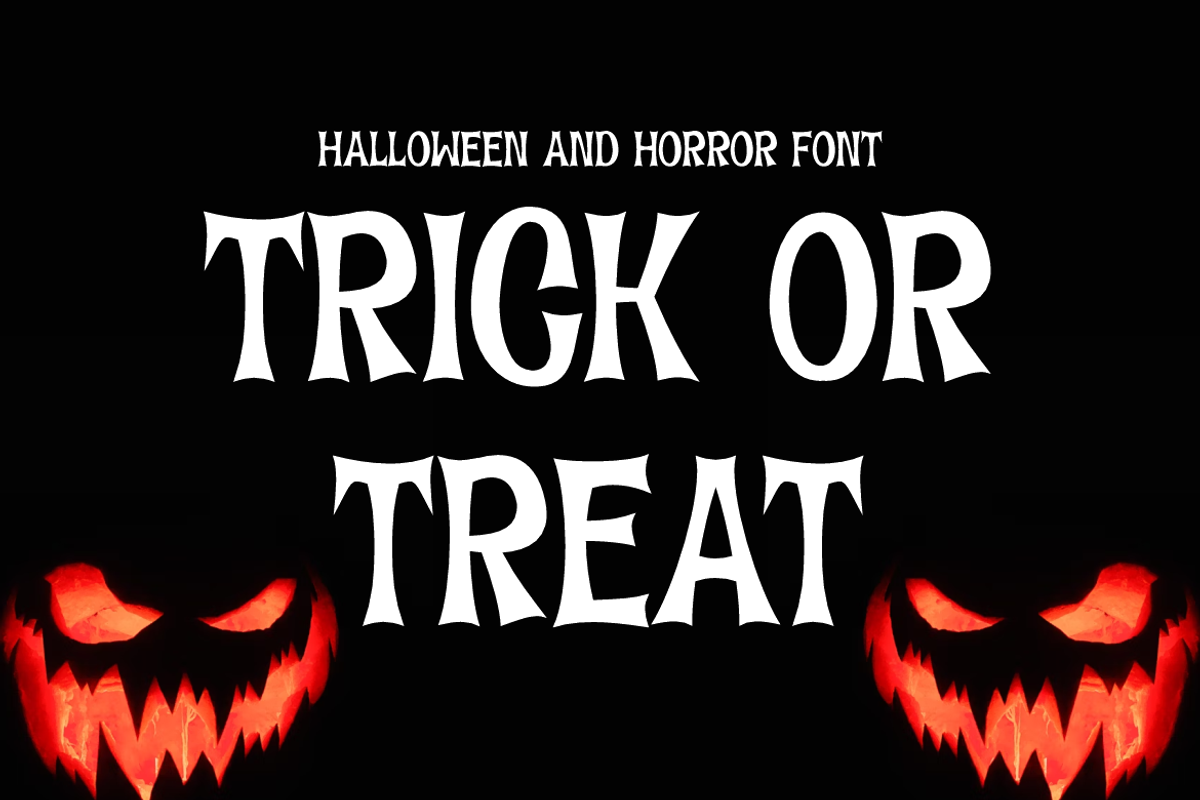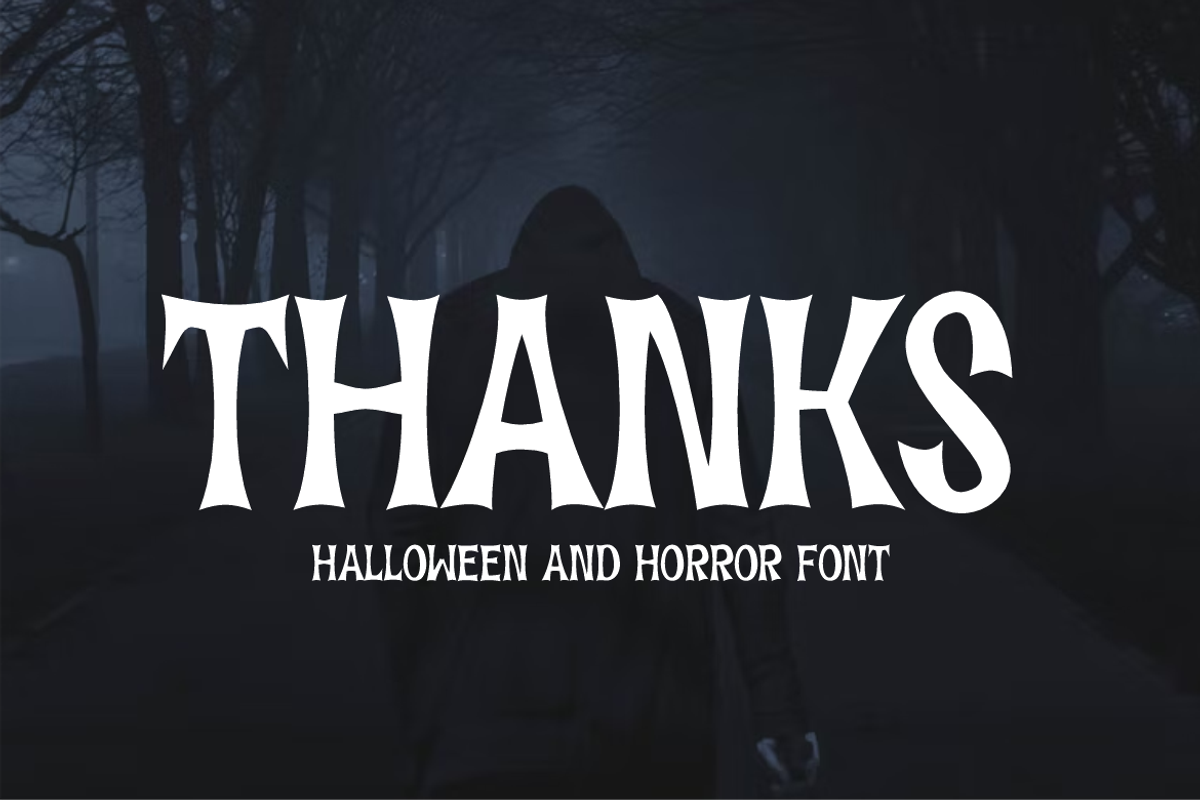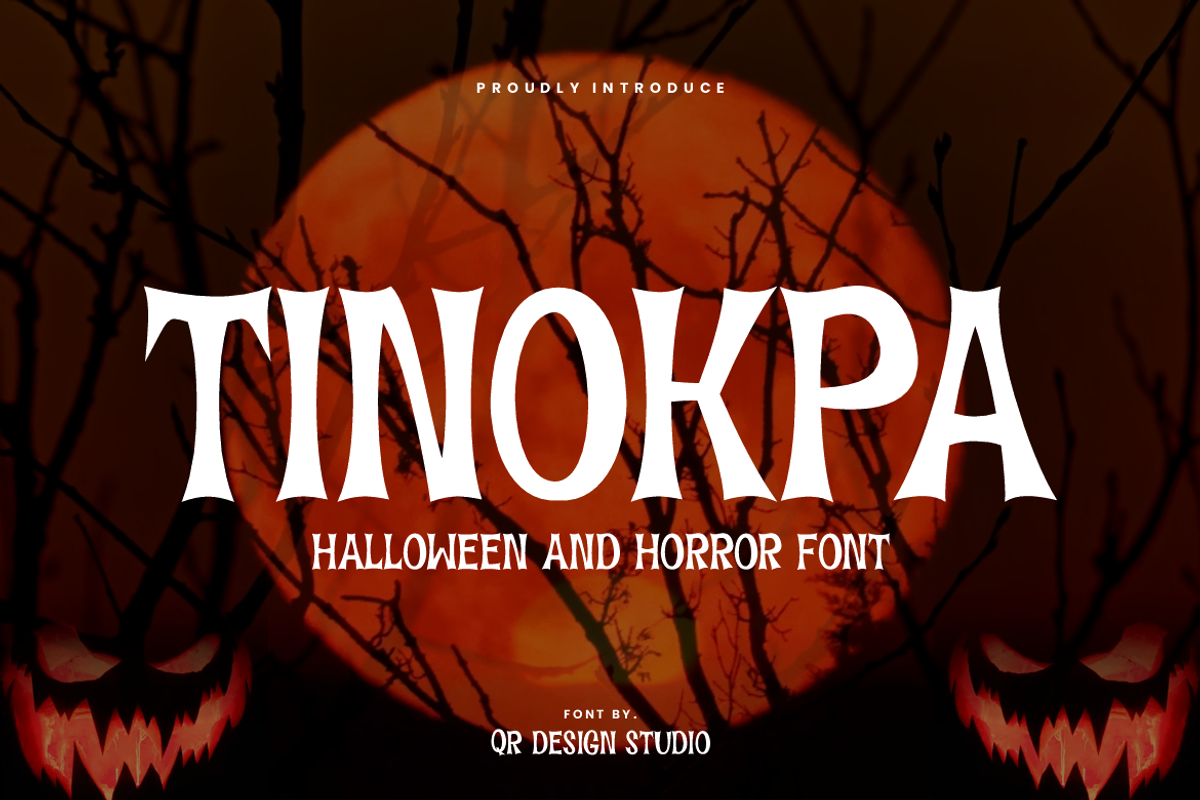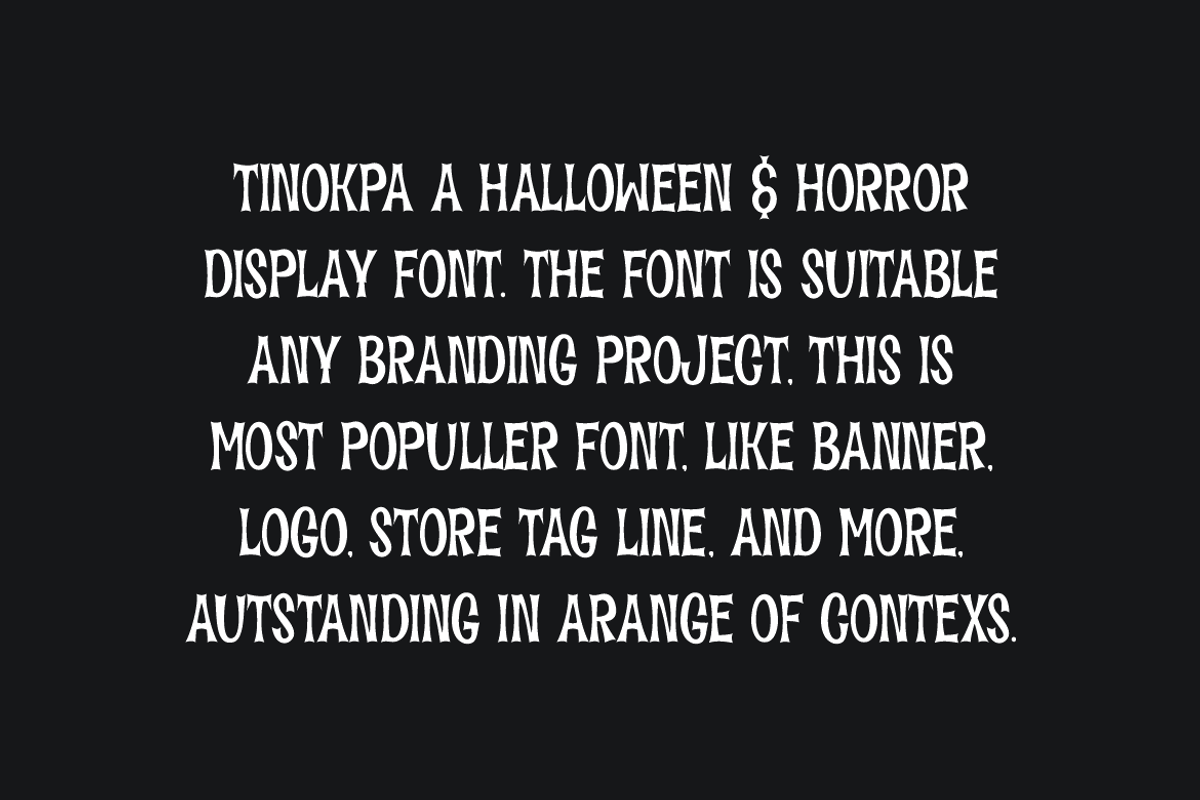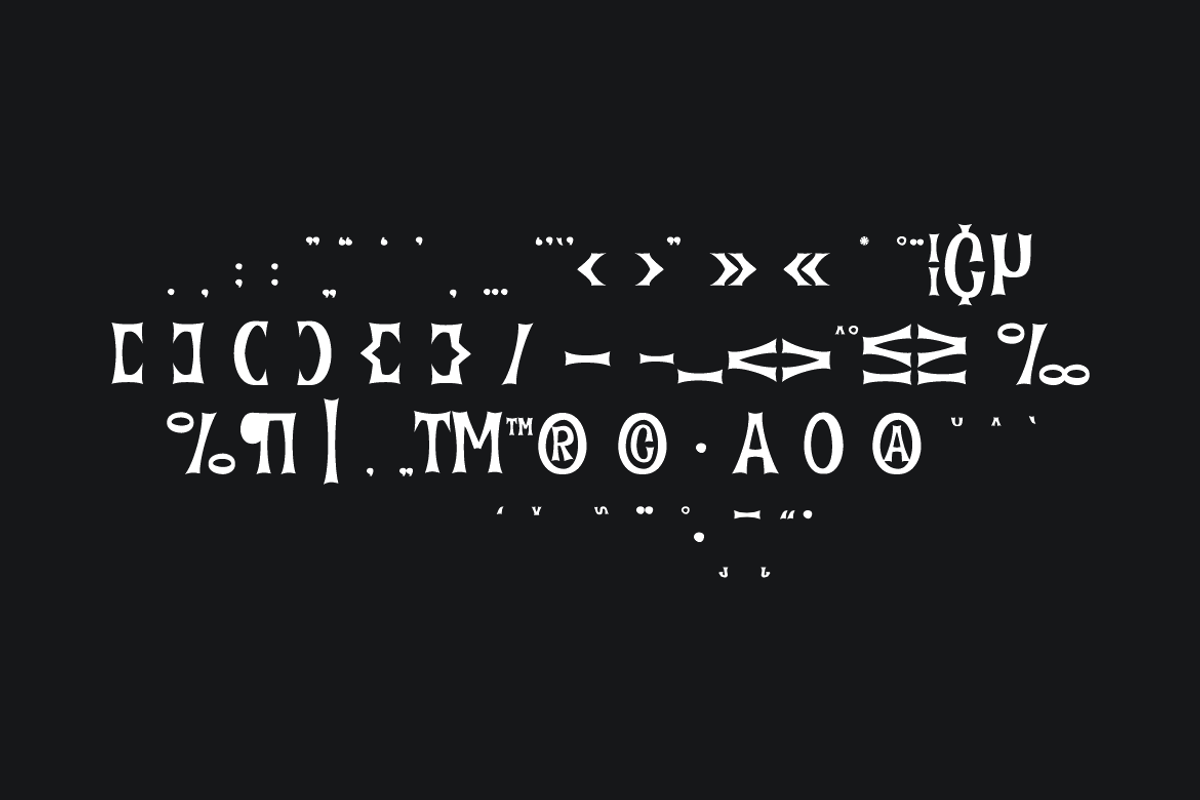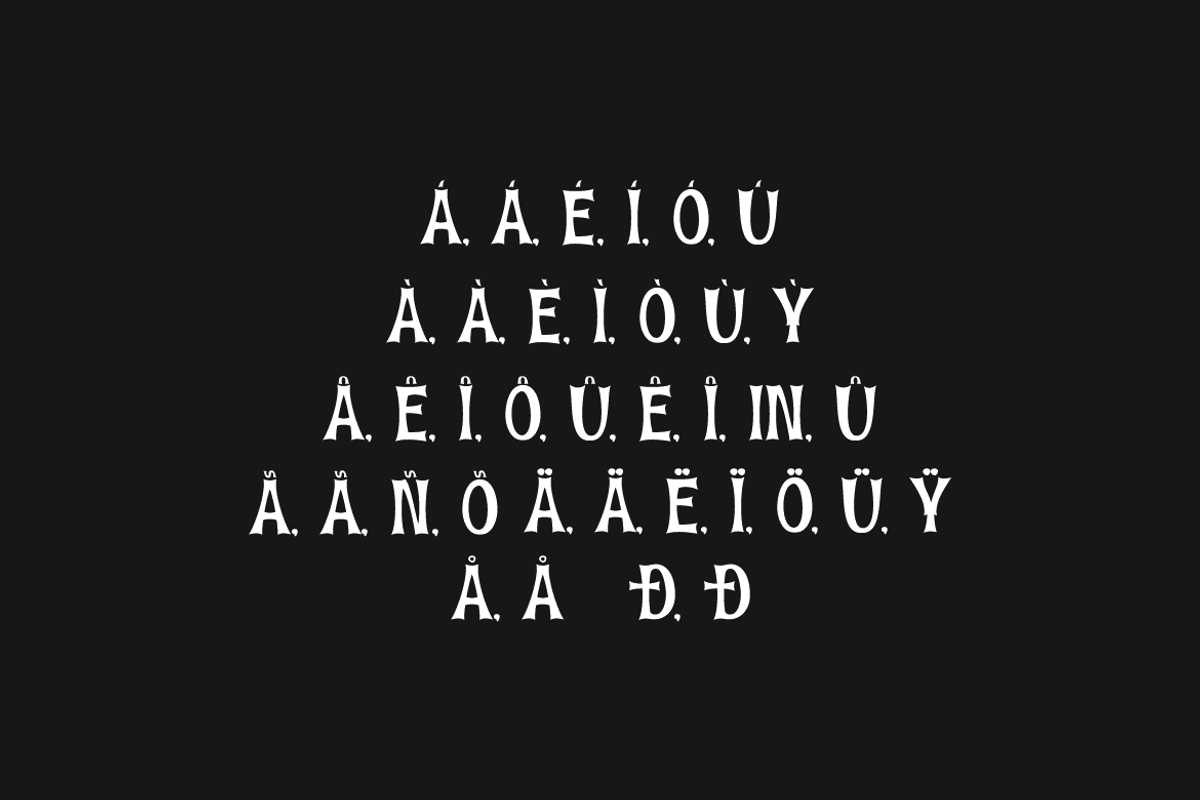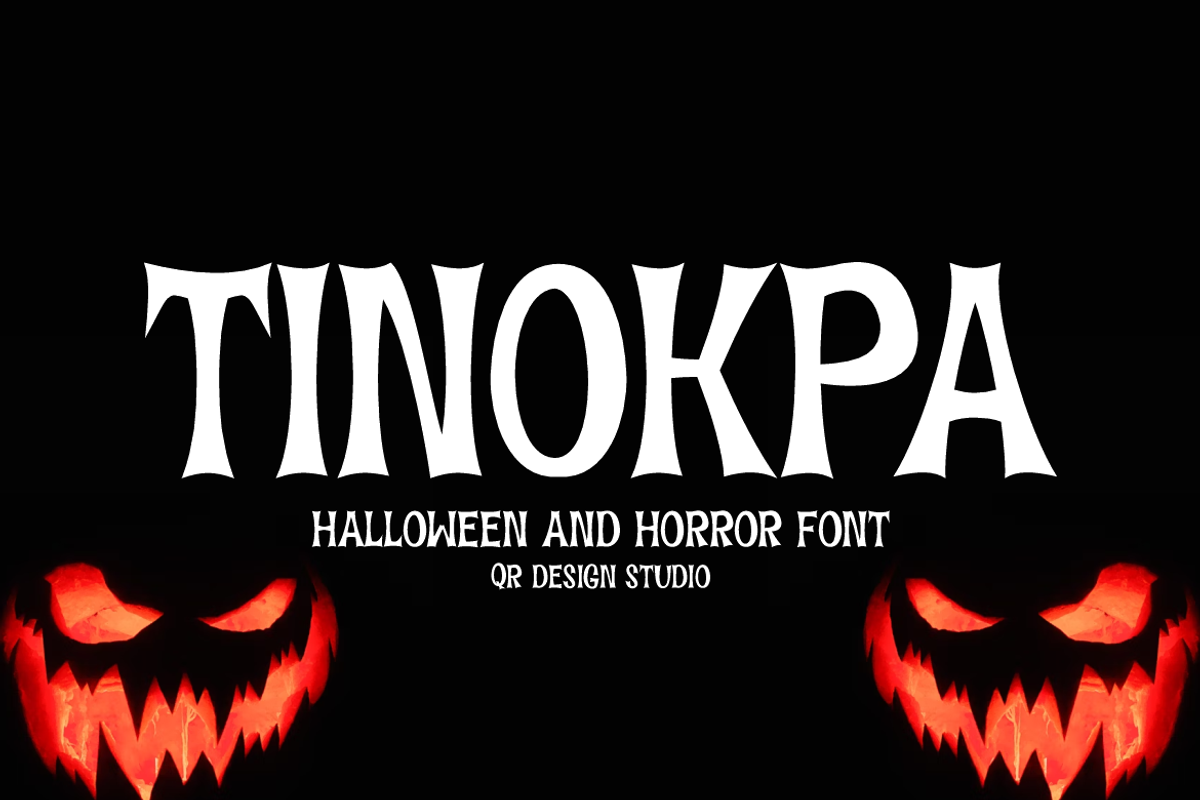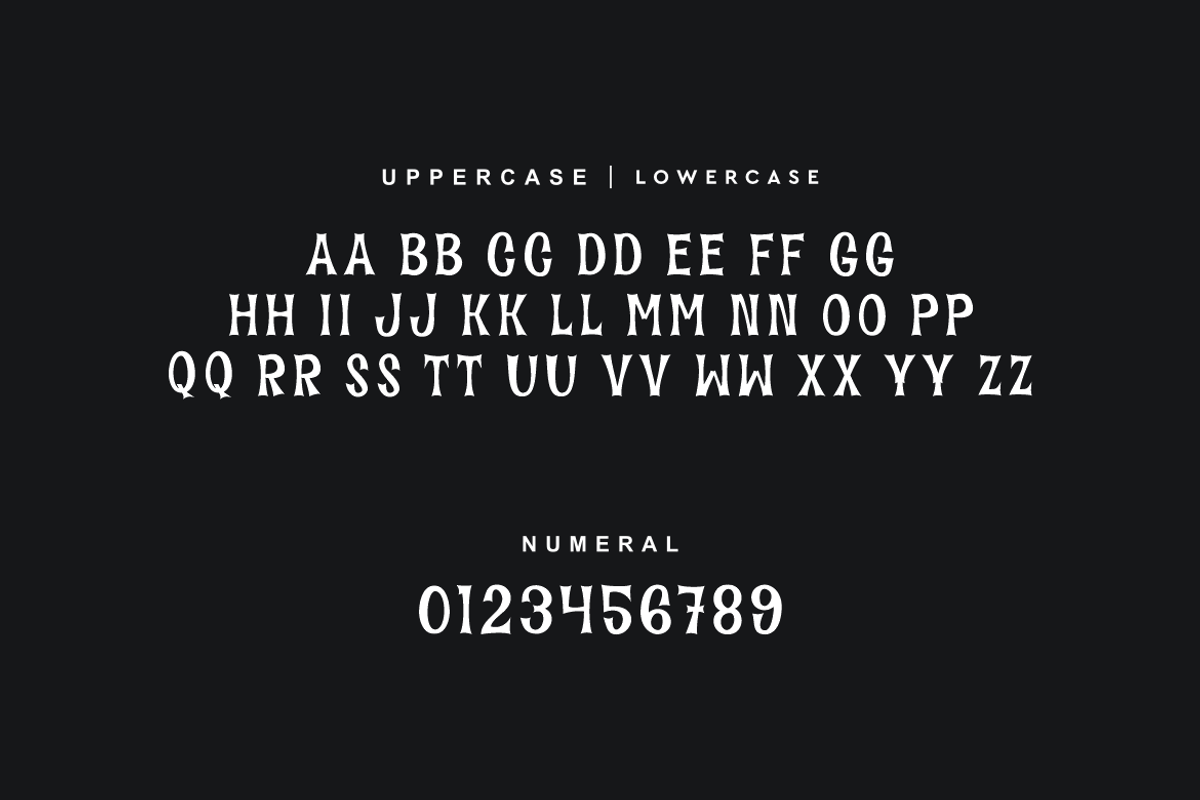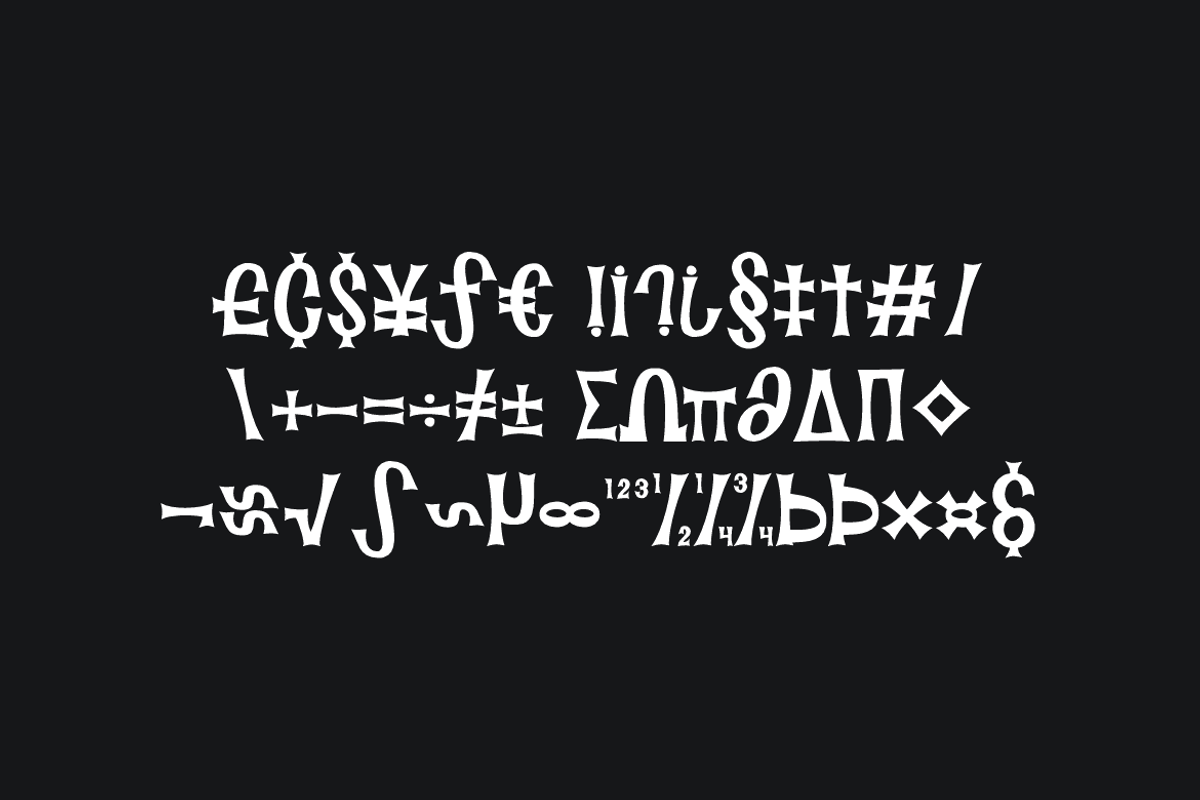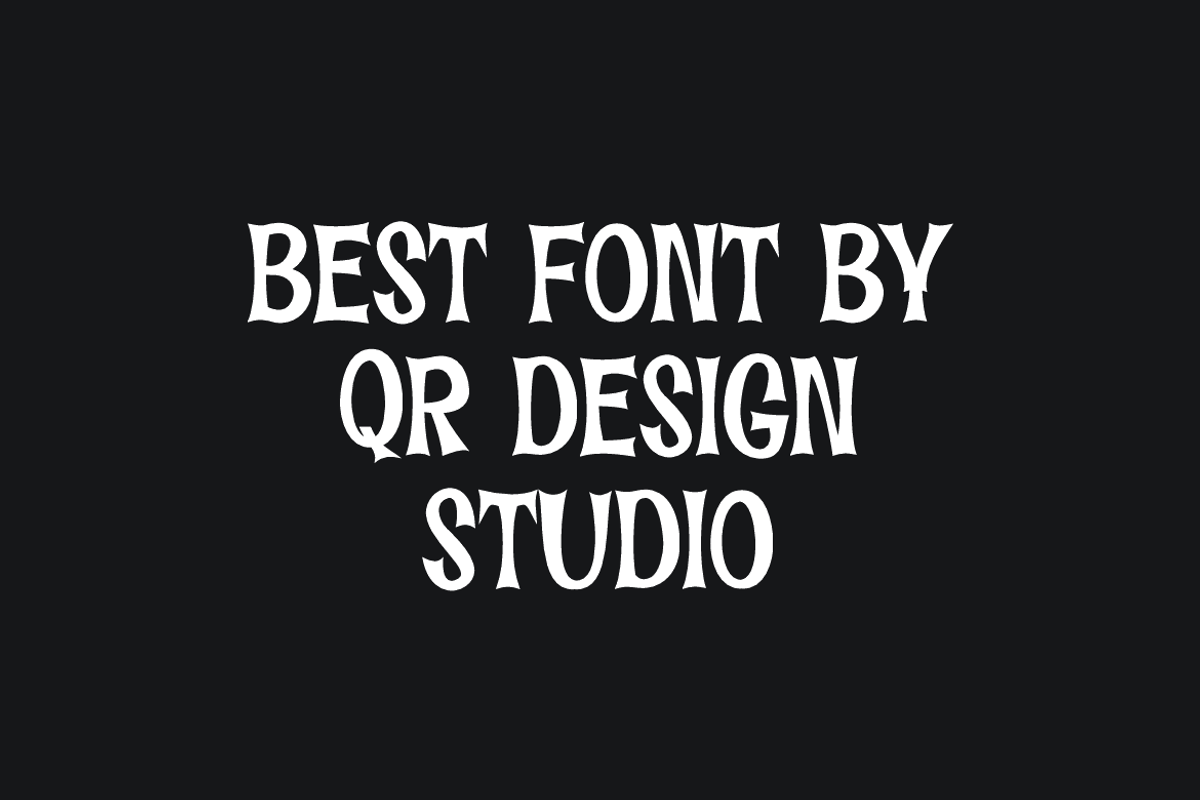
Tinokpa - Halloween Font
Tinokpa Font is a halloween and authentic display font. The font is suitable for any branding project like poster, logo, sport, and many more. Outstanding in a wide range of contexts.